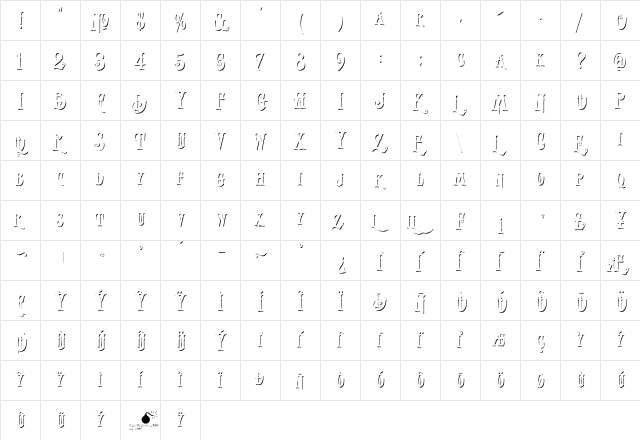
LHF Antique Shop Shadow Regular
| Foundry | Chuck Davis for Letterhead Fonts |
| Designer | Chuck Davis |
Design Context for LHF Antique Shop Shadow Typeface
LHF Antique Shop Shadow has the warm character of retro typography — evoking diners, record sleeves, and the golden age of print advertising.
Ideal for diner signage, record shop branding, 70s/80s-themed projects, and heritage product labels.
Font Pairing: Combine LHF Antique Shop Shadow with a simple slab or neutral sans — period-accurate companions reinforce the vintage feel without competing for attention.
Pro Tip: Lean into LHF Antique Shop Shadow's period character by pairing it with aged paper textures, muted colour palettes, and vintage illustration styles.